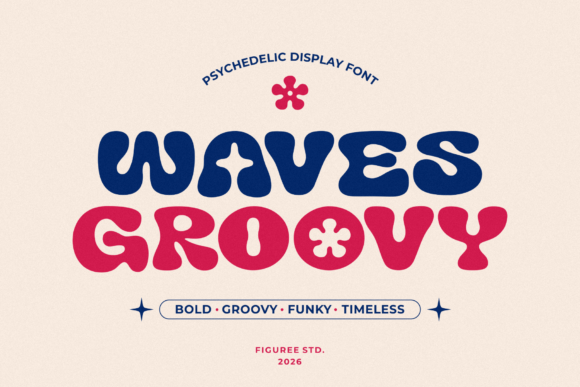
Get Ready to Groove: Unlocking the Power of Groovy Waves Font
Have you ever been working on a design project and suddenly, you just know that it needs something more – something that screams ‘retro vibes’ and grabs the attention of your audience? That’s where the magic of Groovy Waves Font comes in. Inspired by vintage psychedelic lettering and flowing wave-shaped typography, this font is the perfect addition to your design toolkit.
Designed to create eye-catching visuals with a nostalgic retro atmosphere, Groovy Waves Font is built for creative projects that need a strong visual identity. Whether you’re designing posters, music event graphics, album covers, or packaging, this font helps your typography become the center of attention. Its thick all-caps design makes every word stand out clearly while maintaining its unique psychedelic personality.
Groovy Waves Font Key Features
- Font Style: A unique, hand-drawn font with a wavy, organic feel, perfect for creative and artistic designs.
- Character Set: Includes uppercase and lowercase letters, numbers, and punctuation marks, making it suitable for a wide range of text-based designs.
- Unique Characteristics: The font’s wavy lines and organic feel give it a distinctive, eye-catching appearance that sets it apart from other fonts.
Designer Review: Groovy Waves Font
I recently had the chance to work with the “Groovy Waves Font” and I must say, it’s a unique addition to any project. ✨ One of the things I love about this font is its ability to evoke a carefree, retro vibe. It’s perfect for projects that need a touch of nostalgia or a fun, playful feel.
- ✨ The font is highly customizable, allowing you to adjust the size, color, and spacing to fit your needs.
- ✨ It’s available in a range of weights, from light to bold, giving you plenty of options for different design scenarios.
- ✨ The font is highly legible, making it easy to read even in small sizes.
- ⚠️ The font may not be suitable for formal or professional projects, as it has a more playful, casual feel.
- ⚠️ It may be difficult to use the font in projects where a high level of precision is required, as the waves can make it harder to read.
Overall, I think the “Groovy Waves Font” is a great addition to any designer’s toolkit. It’s perfect for projects that need a fun, playful feel and it’s highly customizable to boot. Just be aware of its limitations and use it wisely.
Use the Groovy Waves Font to add a unique and creative touch to your designs.
- Graphics and logos
- Infographics and charts
- Marketing materials and promotional items
Remember to use the Groovy Waves Font in moderation to avoid overwhelming your design.
Great Vibes is a script font with a playful and energetic feel. It’s ideal for creating a fun and lively atmosphere, making it perfect for branding, advertising, or any project where you want to convey a sense of excitement and joy. Great Vibes is more elegant and refined compared to Groovy Waves Font, which has a more casual and laid-back feel.
Carolyna Pro is a modern and elegant script font with a sophisticated feel. It’s perfect for creating a luxurious and high-end design, making it ideal for branding, packaging, or any project where you want to convey a sense of exclusivity and refinement. Carolyna Pro is more polished and refined compared to Groovy Waves Font, which has a more relaxed and casual feel.
Q: What is the recommended font size for the Groovy Waves Font?
The Groovy Waves Font is designed to be used at a minimum font size of 12 points, but it can be scaled up to larger sizes for maximum impact. However, using the font at extremely large sizes may affect readability and legibility.